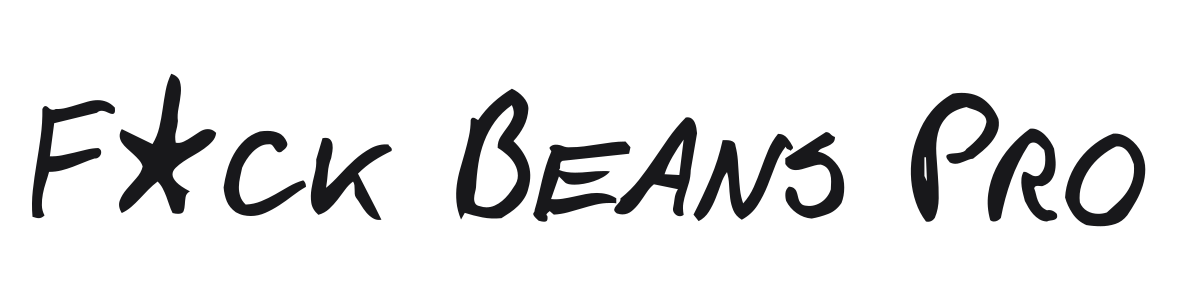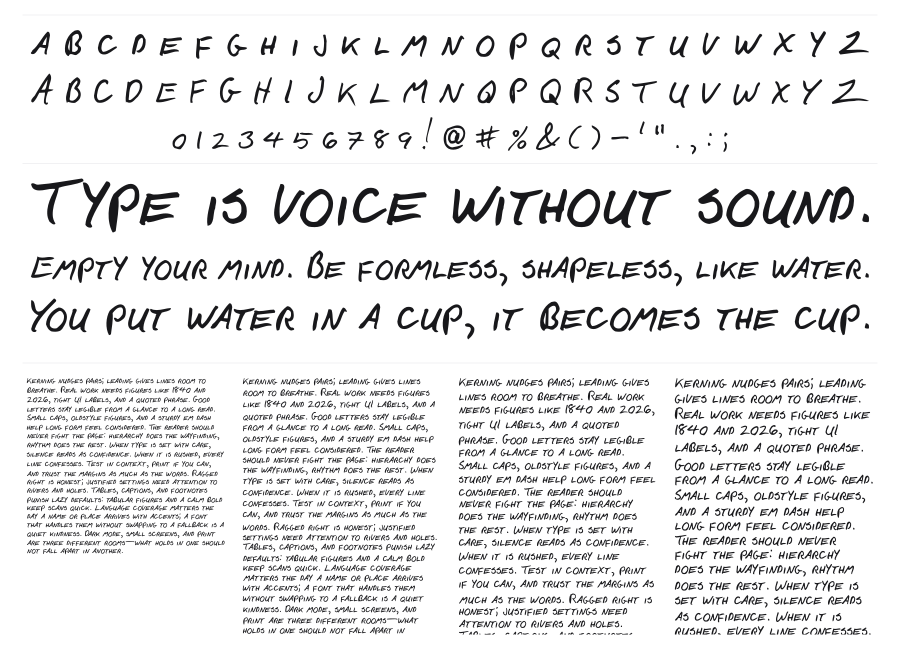
F*ck Beans Pro
F*ck Beans Pro is a bold handwritten font digitized directly from a real person's handwriting. The thick, slightly slanted strokes carry the natural imperfection of a felt-tip pen moving quickly across paper. It works well anywhere an authentic, human touch matters more than precision.